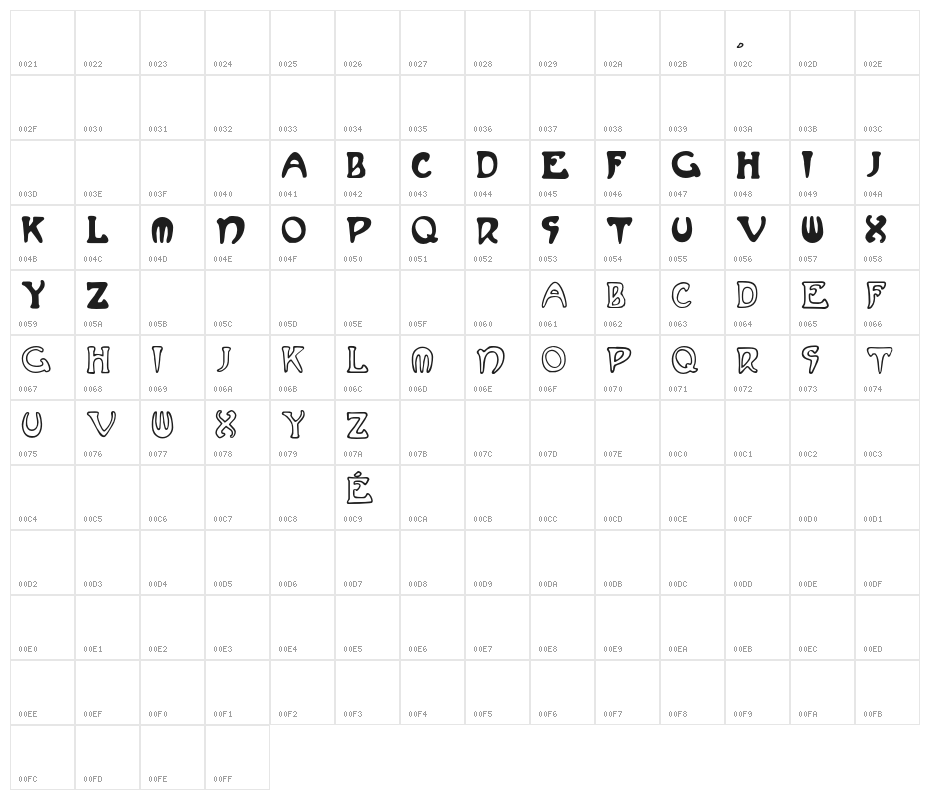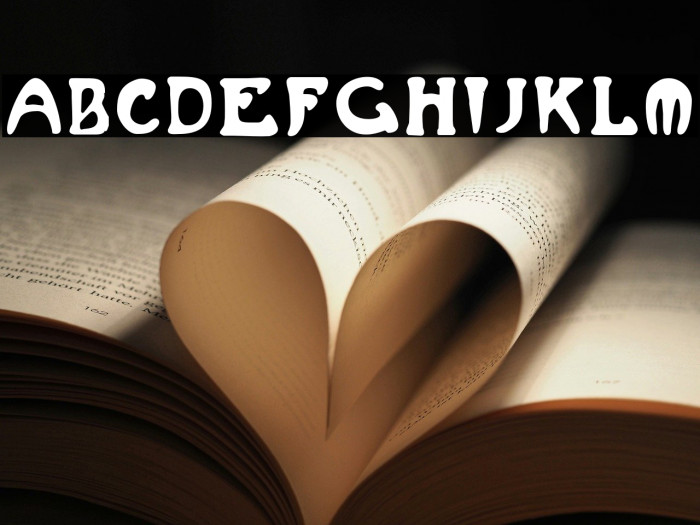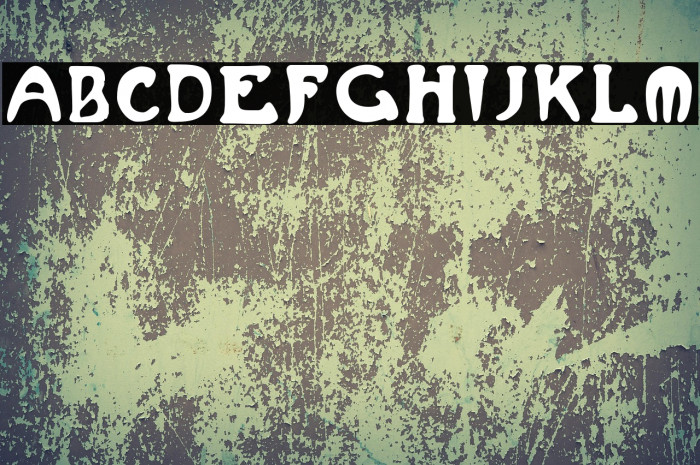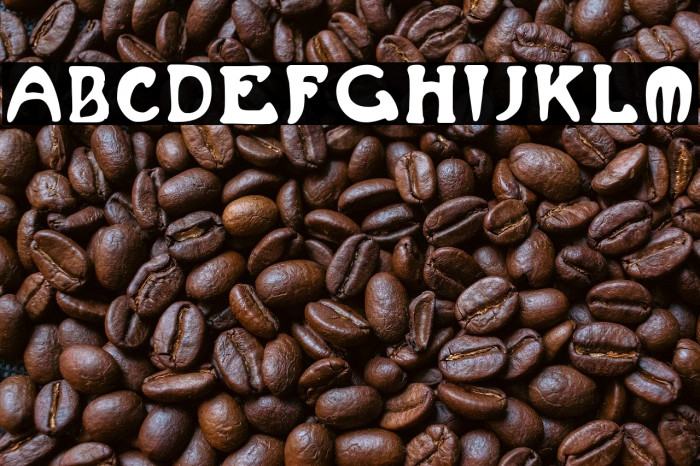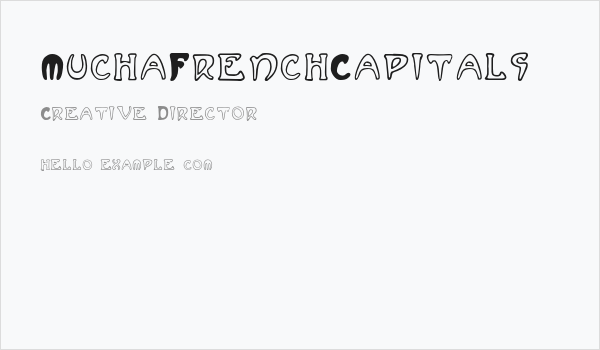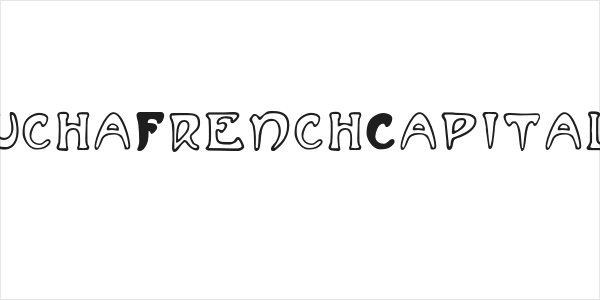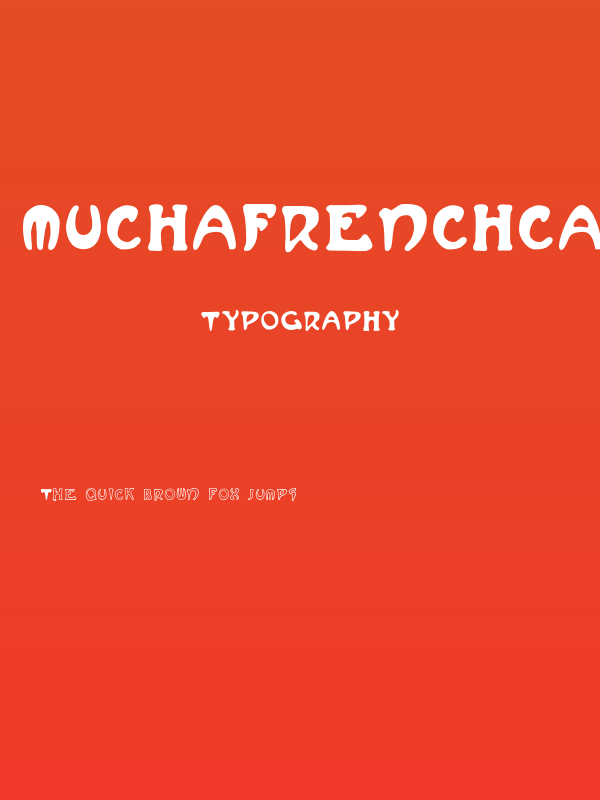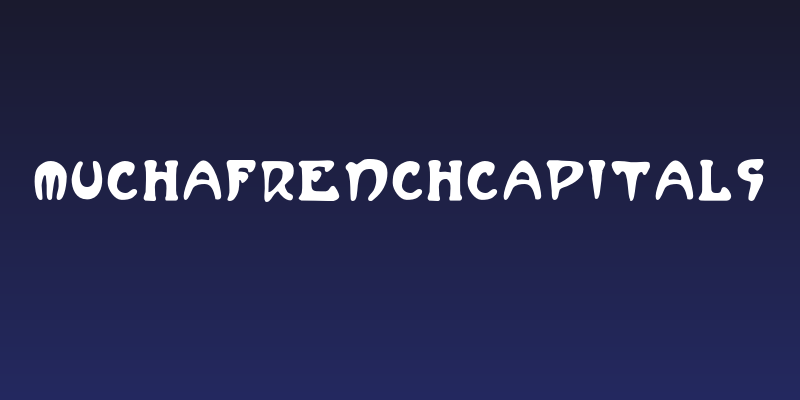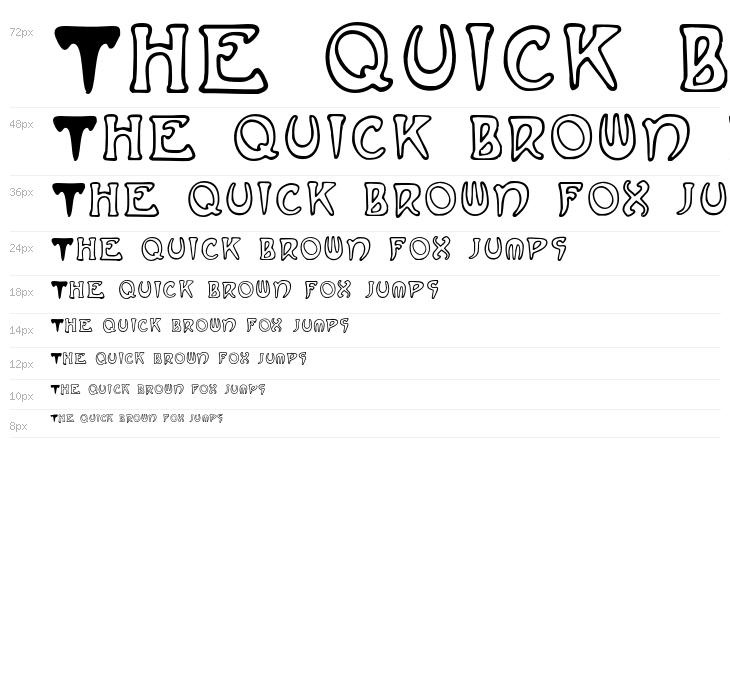
MuchaFrenchCapitals Font
MuchaFrenchCapitals Description
This font features a bold and artistic style, characterized by its thick, flowing lines and unique, organic shapes. The uppercase letters exhibit a sense of movement and fluidity, reminiscent of Art Nouveau influences. Each character is distinct, with varying widths and curves that create a dynamic visual impact. The font's playful and decorative nature makes it stand out, offering a sense of creativity and elegance. The lowercase letters mirror the uppercase in style, maintaining the same artistic flair. This font is ideal for projects that require a touch of vintage charm and artistic expression.
| Overall Style | Vintage, Decorative |
| Proposed Projects | Ideal for posters, invitations, branding, and any project seeking a vintage or artistic touch. |